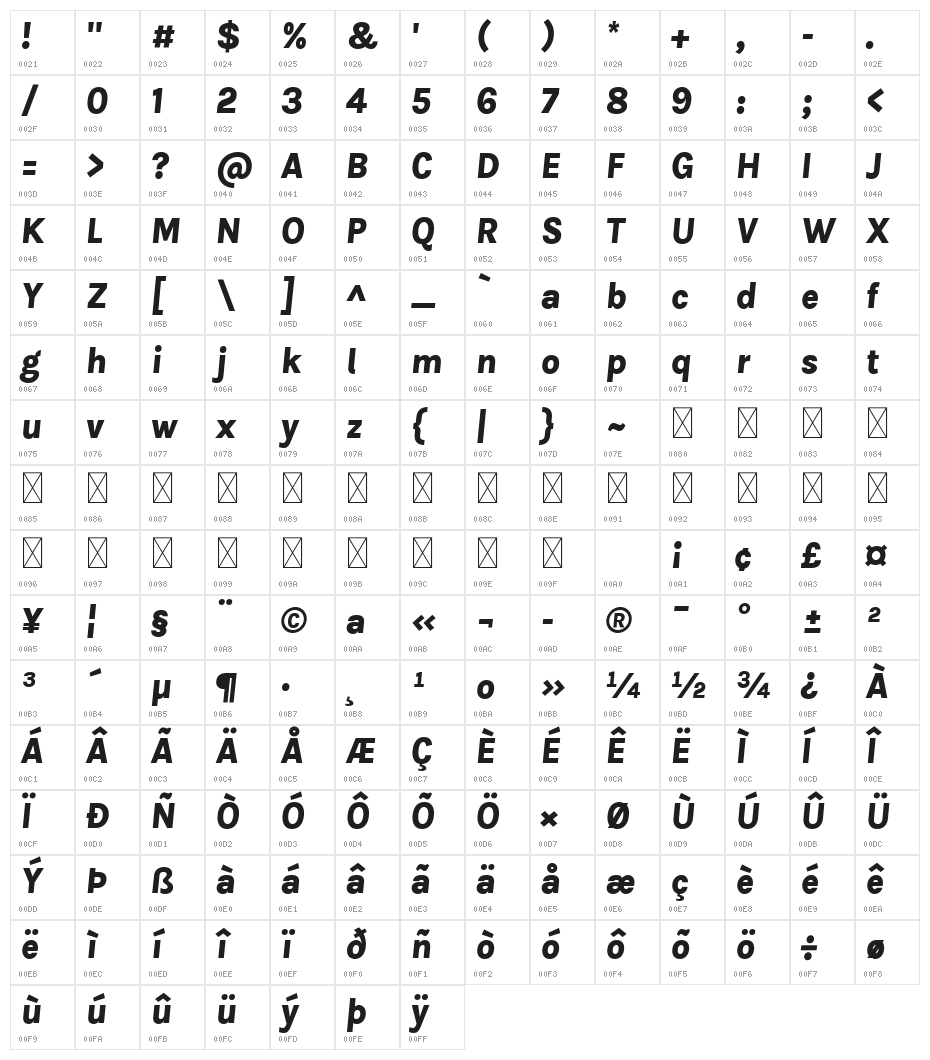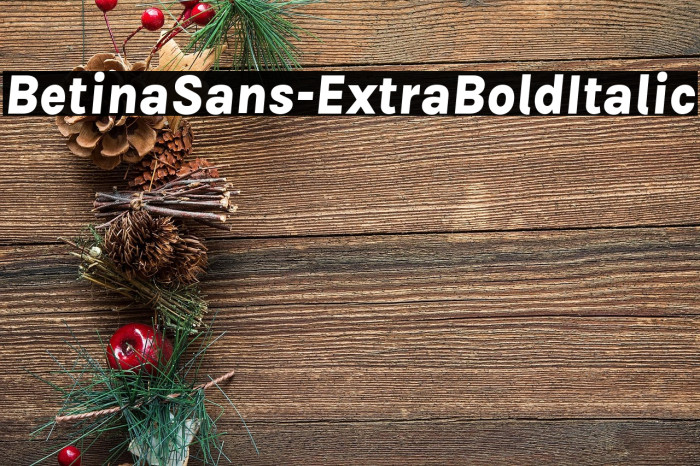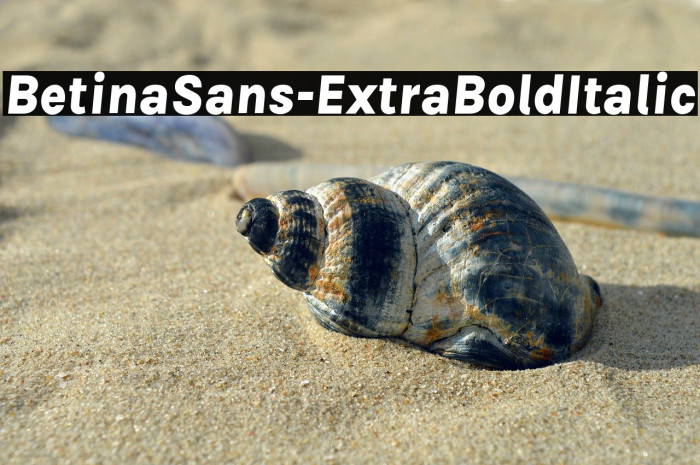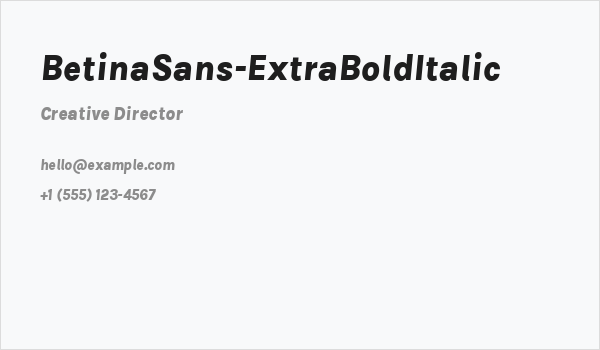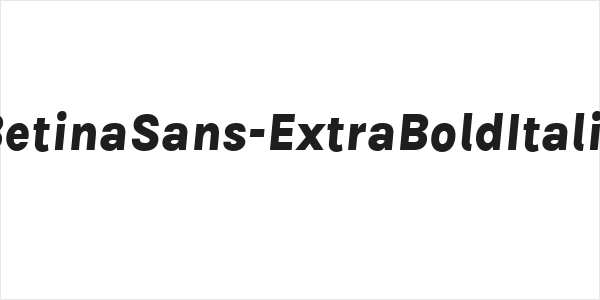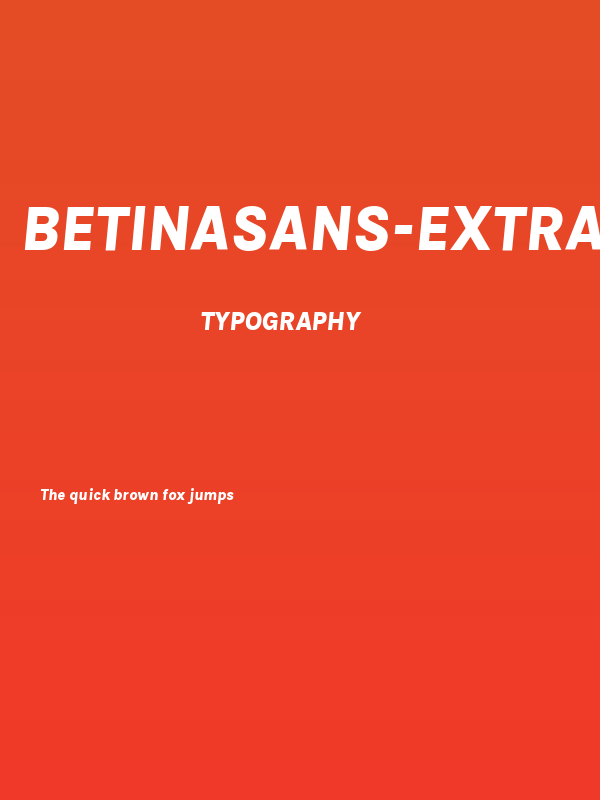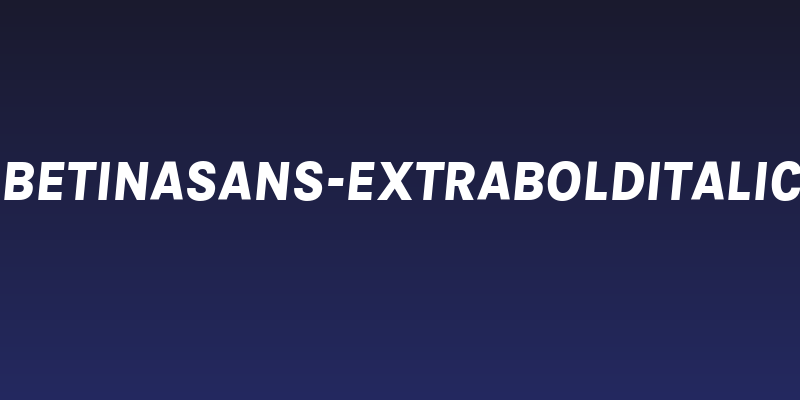
BetinaSans-ExtraBoldItalic Font
BetinaSans-ExtraBoldItalic Description
This font features a bold and italicized style, offering a strong and dynamic presence. The characters are well-defined with a slight slant, enhancing its modern and assertive look. The uppercase and lowercase letters maintain a consistent weight, providing a cohesive appearance across different text sizes. The numbers and special characters are equally bold, ensuring readability and impact. This font's design is clean and straightforward, making it versatile for various applications.
| Use Case | Headlines, Logos, Advertising |
| Proposed Projects | Ideal for branding, advertising, headlines, and digital media where a strong visual impact is needed. |